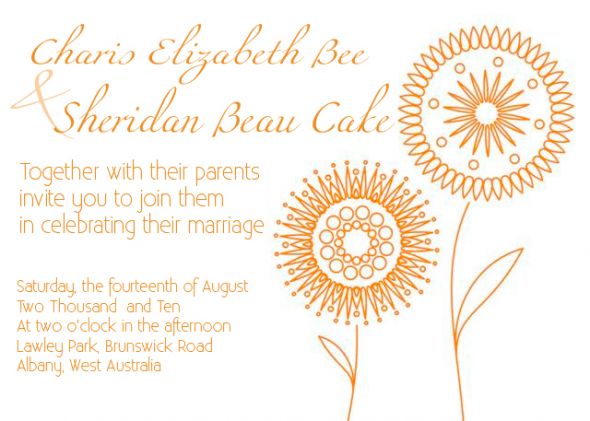
I like the first one, it reminds me more of you (does that make sense since I don't know you?! lol it's more bubbly and fun and that's who I think you are...)
haha thanks. I think fonts are soo hard to chose. I literally have downloaded about 50 and Im printing them off and FH is like.. I like this one, I like that one better. Process of elimination. Since posting I found about 3 other fonts he likes.
Such a decision! It might have to resort to rock scissors paper soon. :S
I know what you mean! It took me forever to find a font we like!
I like the first one more because it blends better with the rest of the font but still stands out.
The second one is a thicker font and just stands out too much, IMO. If that makes sense?
Another one that FH likes now... possibilities are growing. This could be ridiculous. Thanks to all who have voted in the poll. its great!
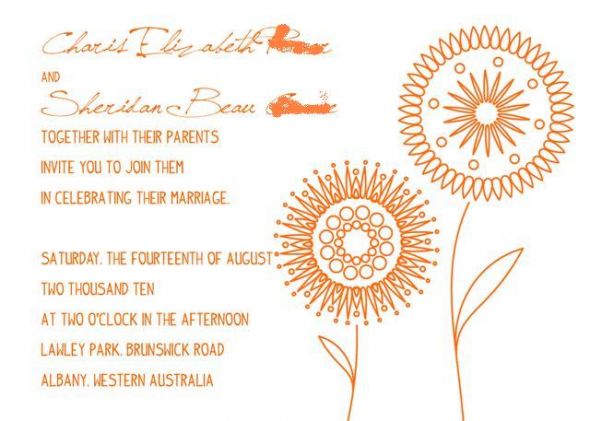
Hm. I still like 1 better.
Here's why. The font weight of the first one matches your body font. The font weight of the 3rd one is much lighter than your body font. In essence you want your names to stand out which is why we use different fonts. But in that font (on #3) the weight is lighter which also makes it blend into the background. When you want it to pop.
That's what I was trying to achieve with my fonts. It sucks because I would find a font style I like but it wouldn't match the font weight of my body font.
awse! thanks for the feedback gerbera, your right.. I keep on looking at it and im like ummm ahhh... could change the detail font, except the detail font, looks absolutely wicked when its printed on paper. :) Ill keep that tip in mind!
Have you played around with putting the "and" in the same font as your names? It kinda bugs me that it goes back and forth with different fonts.
The wieght of the second one is too bold compared to the other lettering in the invite.
The third one is also a nice font, but I'm not sure if I like the first or the third one better.
I think the first font is too formal (too much script and scrolls) and the third is maybe too casual.
Still like the first on ebetter as well...
Ok how bout this I changed the 'and' as cascoz suggested.. and the font, little fun but formal?? Im not sure. am I just making it worse? I tried to match the weight, but I just wanted to post to get the veiw of the 'and'.
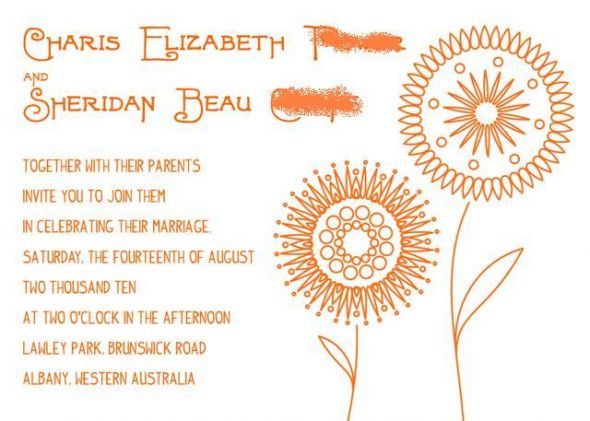
Stop trying to change the Mona Lisa silly!! The first one looks great
Yep, first one here... and I don't usually like scriptina! but it just FITS the style.
I like the first one you posted.
I like the first one. I think the loops in the font mimic the leaves on the flowers, and the body font is a bit 60s to me, which matches well with the feeling I get from the flower heads.
What is that last font you posted? It's so cute!
Bakerella: It is pretty cute! its called, Fortunaschwein and you can download it at www.dafont.com
I like the first one... but then I saw the most recent one that you just posted and I like it too! The flowers are great, by the way!
The first one is awesome... I know I struggled with the font for literally a week and a half... when I realized they all looked great and I needed to just go with my gut on my fave!
The first one is by far my favorite. With the handwritten one you posted as a close second.
Good luck! :)
I like the first one but would adjust the spacing on your names so that the swoops don't overlap with the "and."
I was bored and decided to take a stab at your invites. Procrastinating about my midterms, you know?
Oh, if you like it I should say the fonts are Miama (Script) and Existance Light. Both from DaFont!
Ilikepink! thats so cool. Thanks for giving it a go. I went to bed last night still thinking about diff layouts - very hard for my brain to switch off. Im thinking about just playing around a little more. Its not like they have to be sent off to the printer anytime soon, as I will be printing it anyway :P I had downloaded miama already but havent seen the other one existance.
When I saw the first two choices, I kept thinking, hmmm, I like the conciseness of the second font, but it is perhaps too choppy/angular. But I also loved the slightly whimsical feel of the first one, I just thought it were perhaps too loopy. If only there were a happy medium between loopy and chopping! (Am I the only weird-o who thinks like this?) The third one looks too hastily written, and the fourth one is too gimmicky looking to me. (Yeah, I know, I might have font issues, too.)
Anyway, long story short (too late!), I looooooooove ILikePink's font where your names are! I like it with the details font she has, but I think it could also work with the detail font that you used in the original, which is really nice looking. I also enjoy the separation of the sizes for the details. Oh, and I really enjoy the use of the ampersand, too.
Hello. Just creating my invites and Im stuck on fonts for our names. We both really like the font that the details are in, so I would like to stick with that if I could.Please post honestly what you prefer and if there is any changes you think I should make, please suggest :)